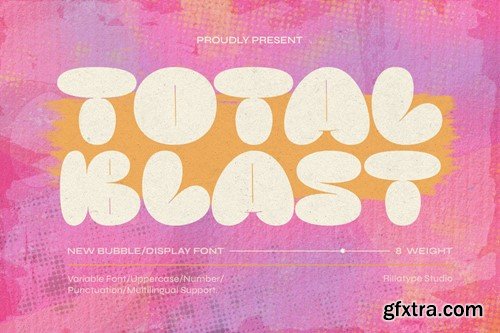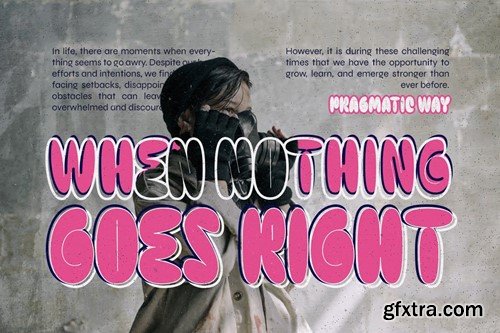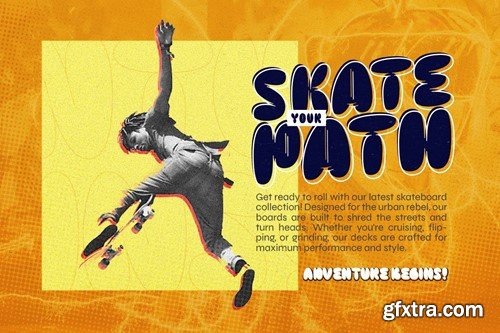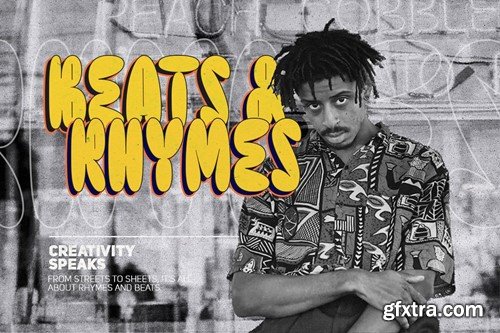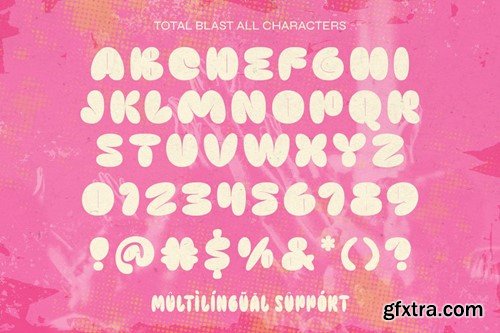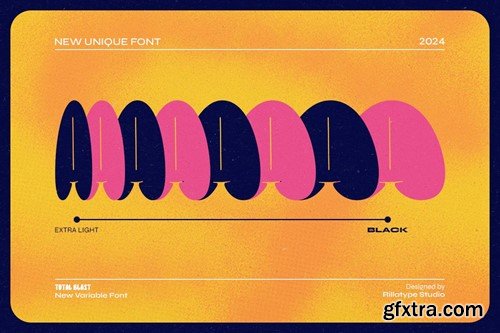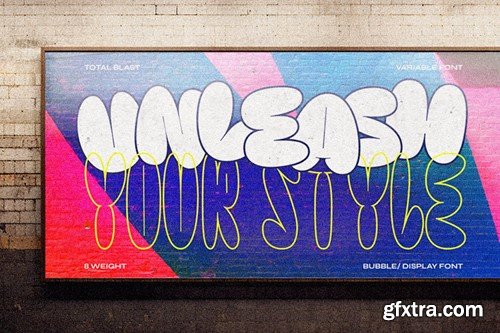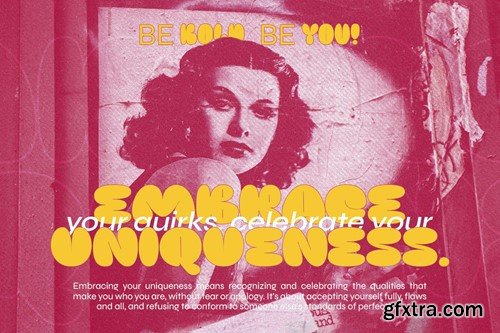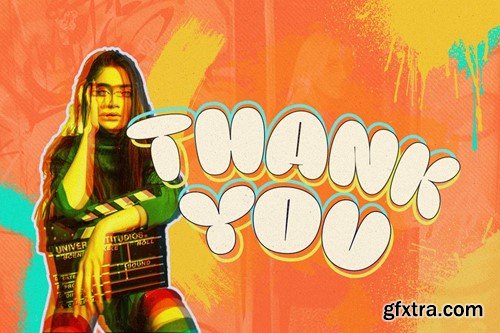
Introducing Total Blast Font, a dynamic display font designed to make your projects stand out. With its versatile range of styles, including Extra Light, Light, Medium, Regular, Semi-Bold, Bold, Extra Bold, and Black, Total Blast offers endless creative possibilities. Whether you're designing posters, headlines, logos, or branding materials, this font delivers a bold and impactful statement. The font also comes with variable font options, allowing you to customize the weight and style according to your design needs. Embrace the energy and versatility of Total Blast Font to bring your designs to life with style and flair. What you get: Thank You